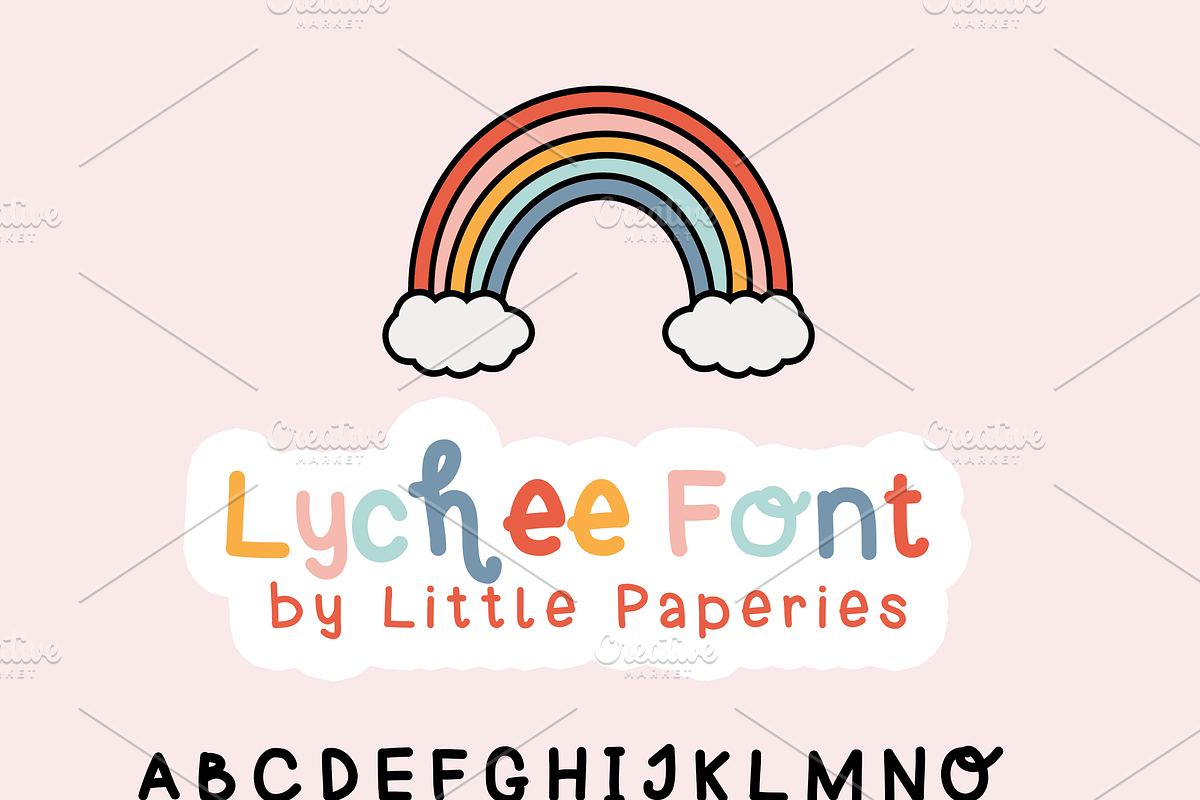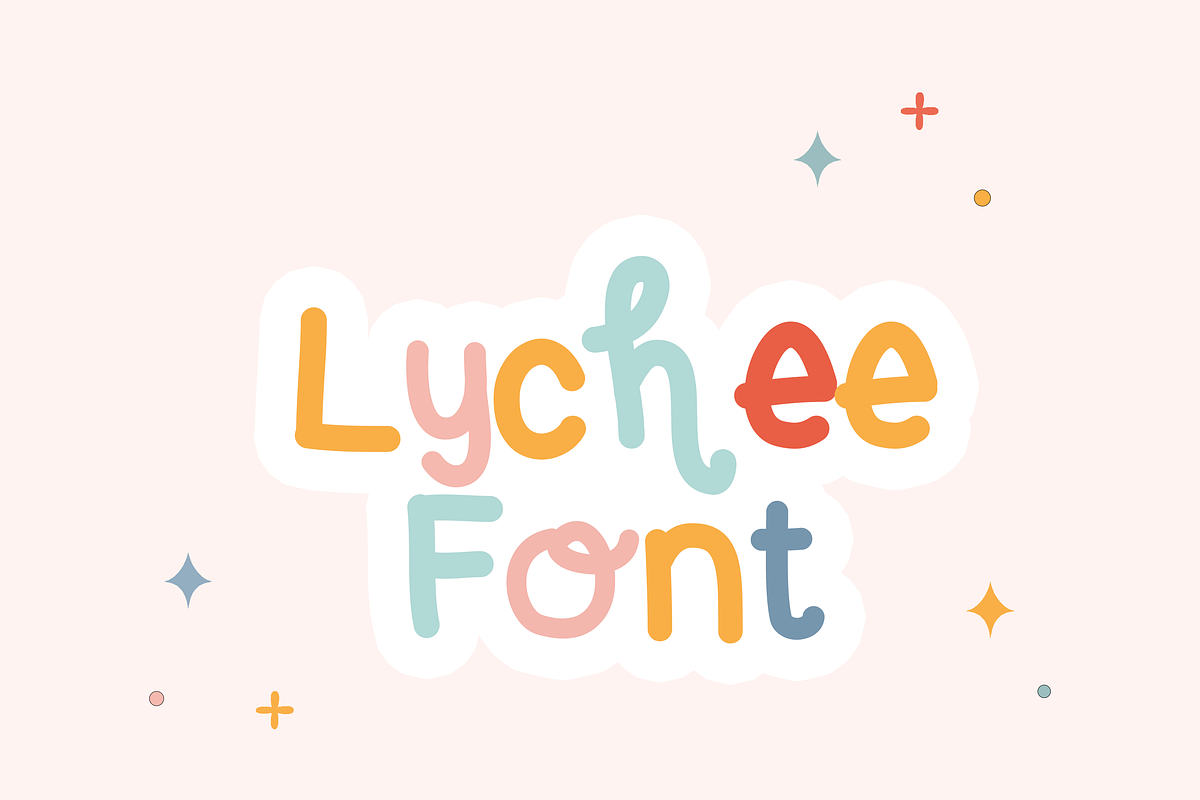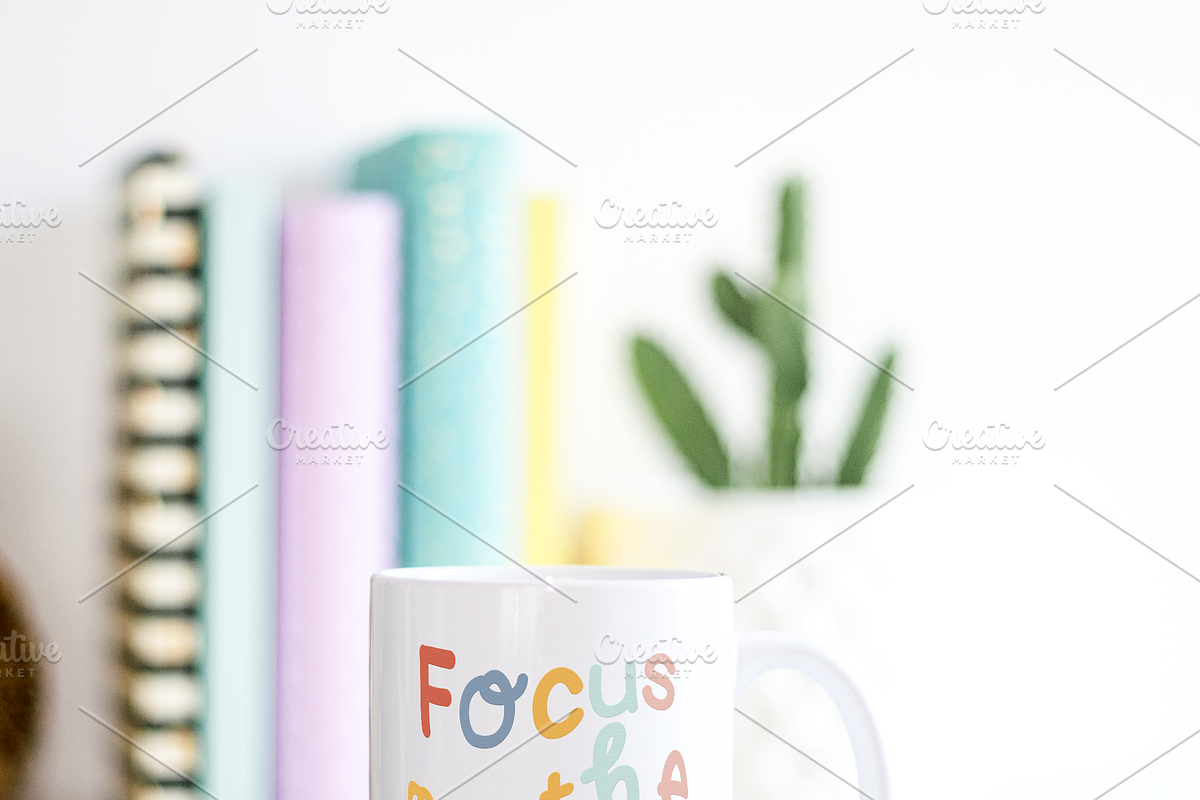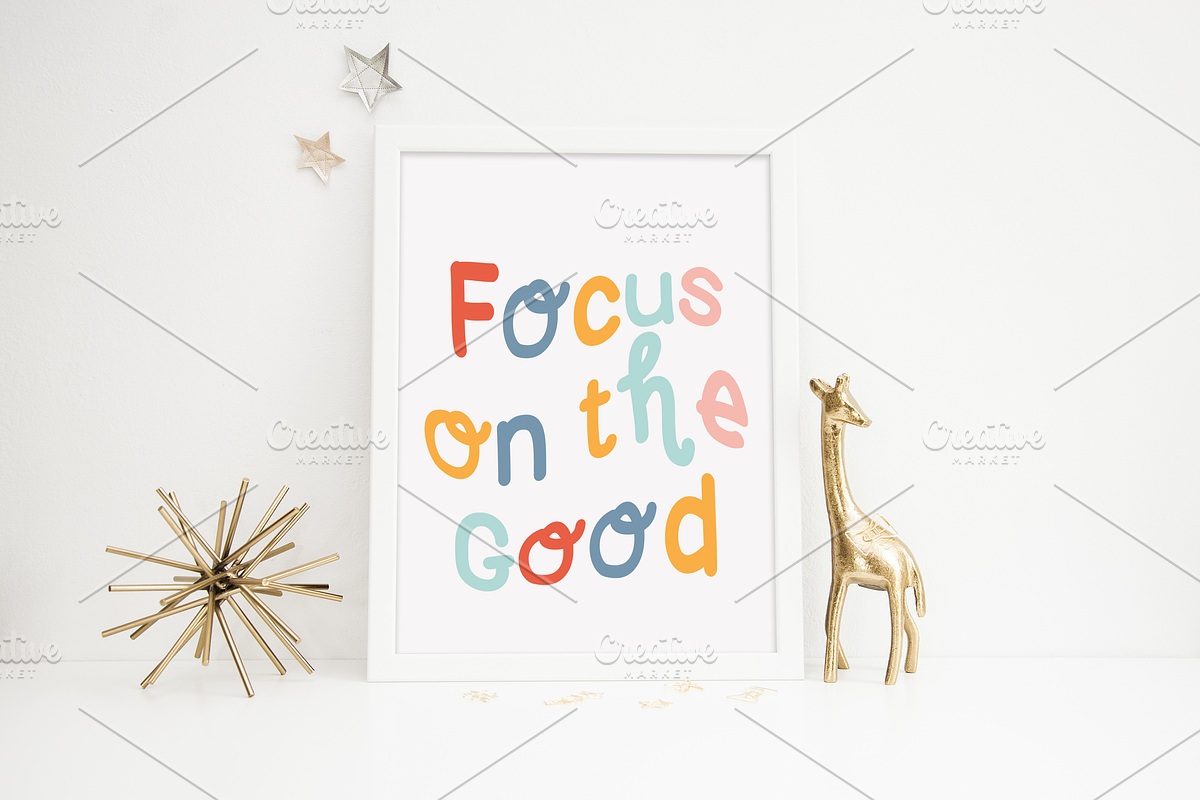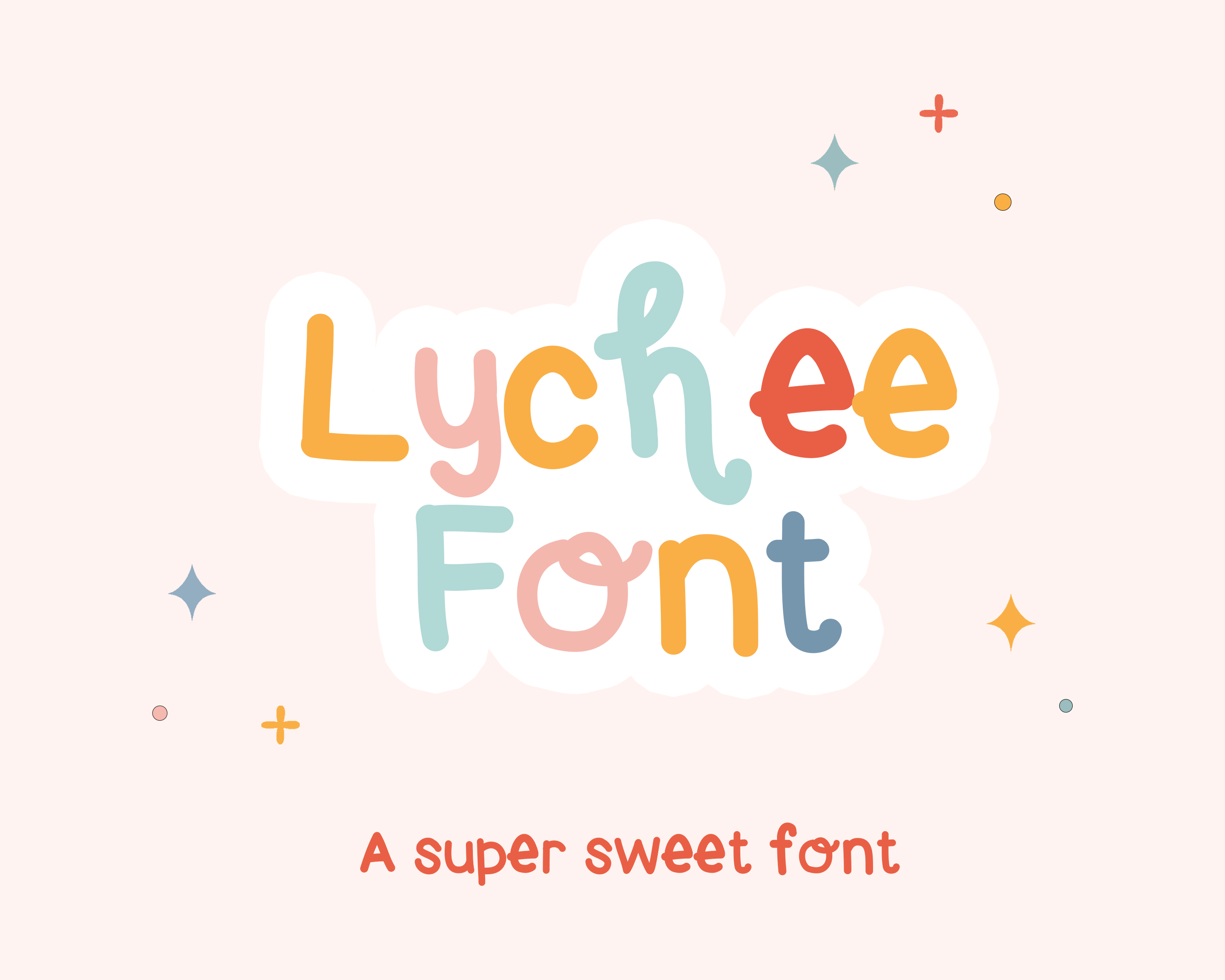
Lychee Font by Little Paperies
We introduce to you the "Lychee" font! A perfectly rounded handwritten font made just for you and all of your future fave products.